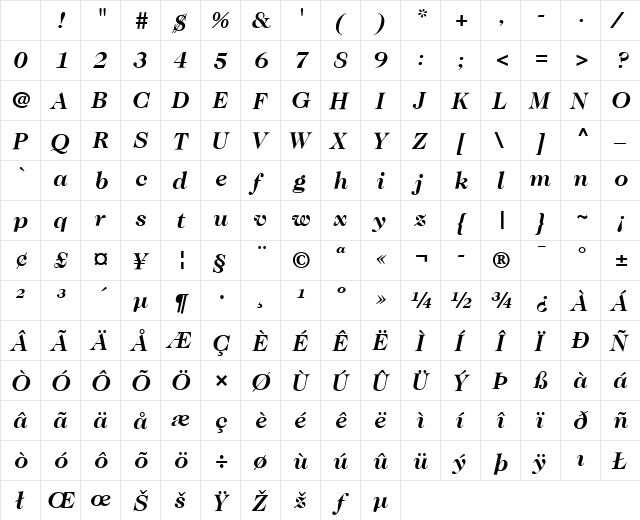
Caslon 224 LT Medium is a composed and adaptable typeface that performs quietly and consistently across a wide range of design contexts. The slanted form adds forward momentum and visual energy. Its bold stroke weight gives it real presence on the page.